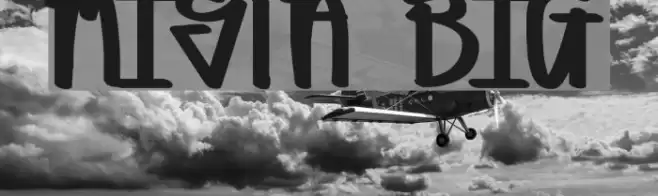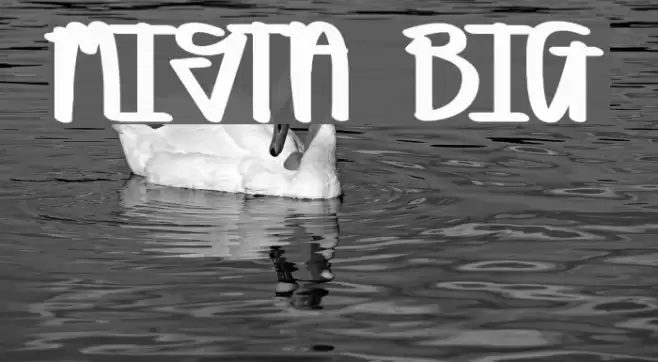
MISTA BIG Font
MISTA BIG Description
This font features a bold, graffiti-inspired style with thick, rounded strokes and a playful, urban aesthetic. The characters are highly stylized, with exaggerated curves and a dynamic flow that gives the text a sense of movement and energy. The uppercase and lowercase letters maintain a consistent height, creating a cohesive look across the alphabet. The numbers and special characters are equally bold and expressive, fitting seamlessly with the overall design. This font is perfect for projects that require a modern, edgy vibe, such as street art, music album covers, or youth-oriented branding.
A bold, graffiti-inspired font with thick, rounded strokes and a playful urban aesthetic from Uncategorized fonts.
- Proposed Projects: Ideal for street art, music album covers, youth-oriented branding, and urban-themed designs.
- Character Spacing: Tight
- Overall Style: Modern, Urban, Edgy